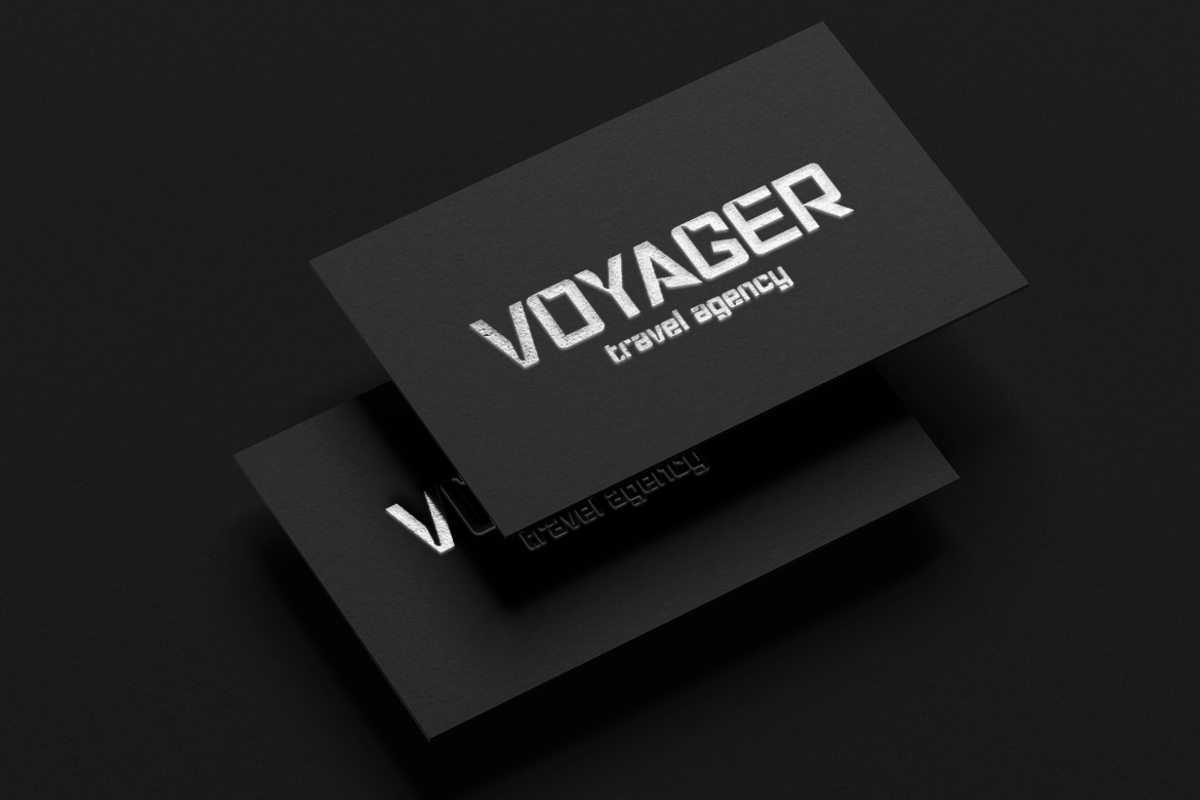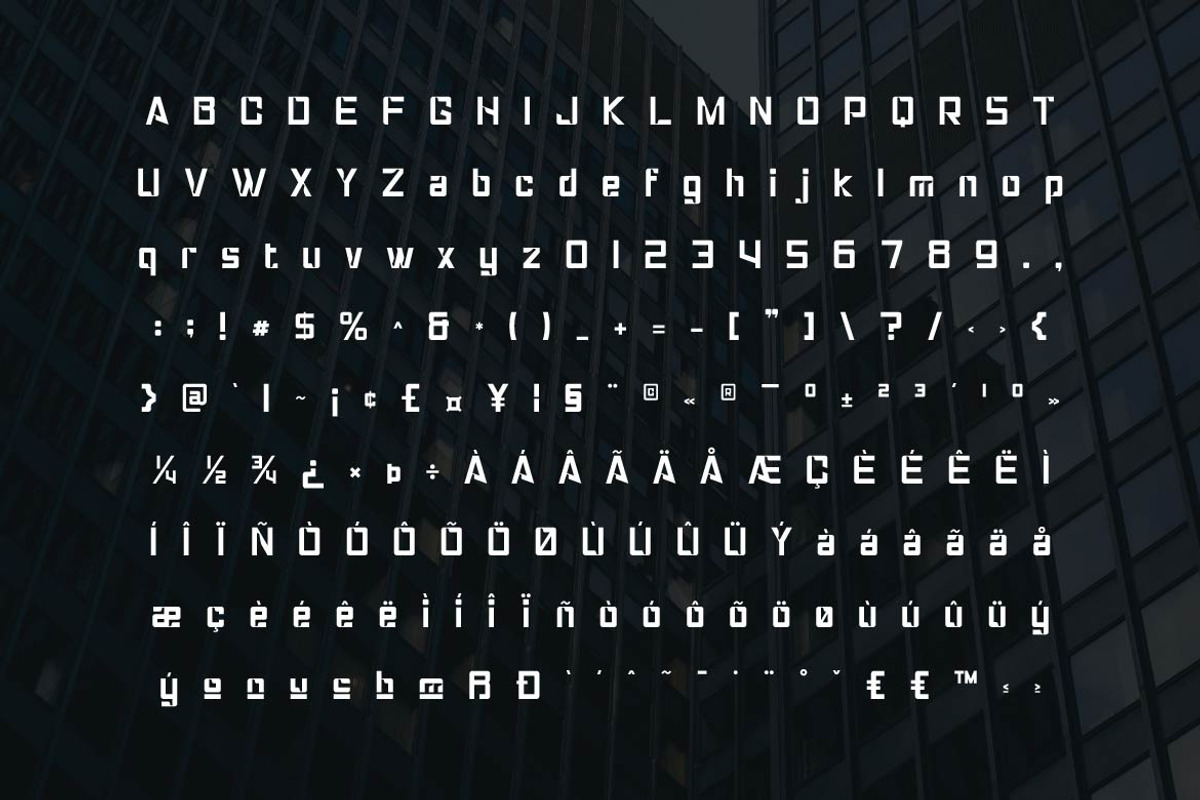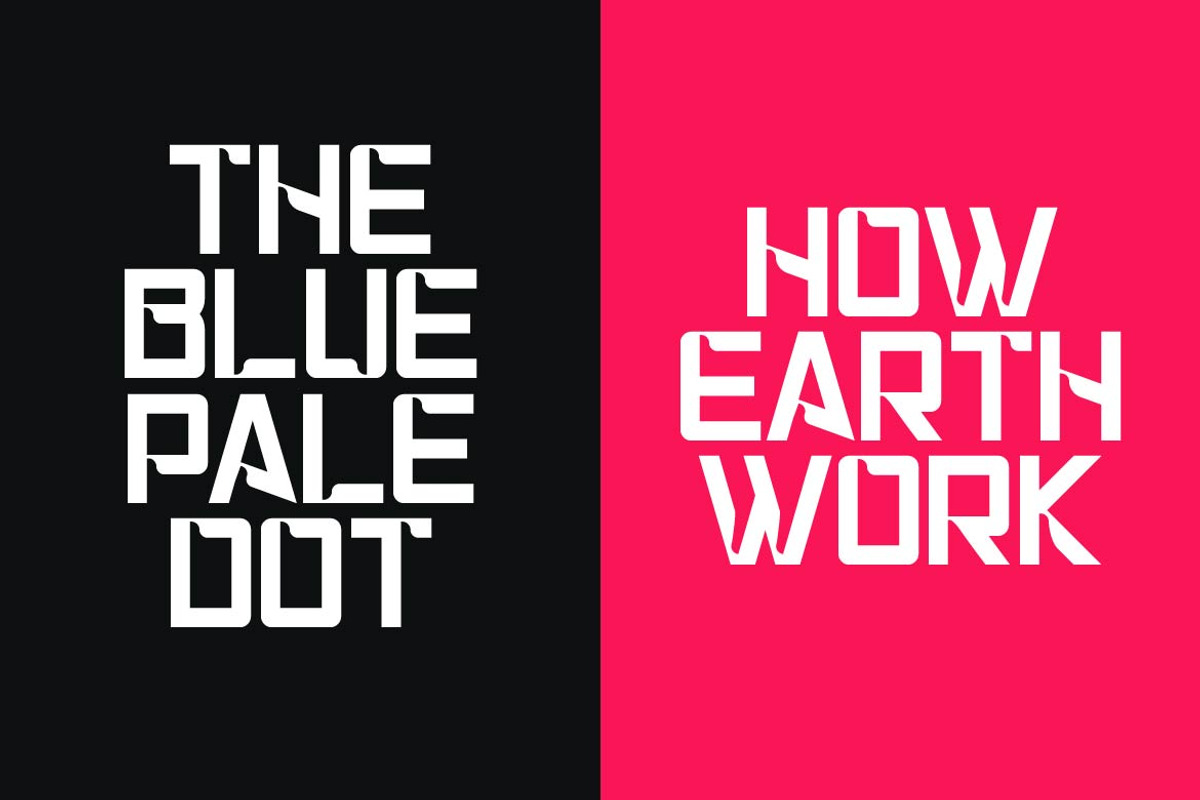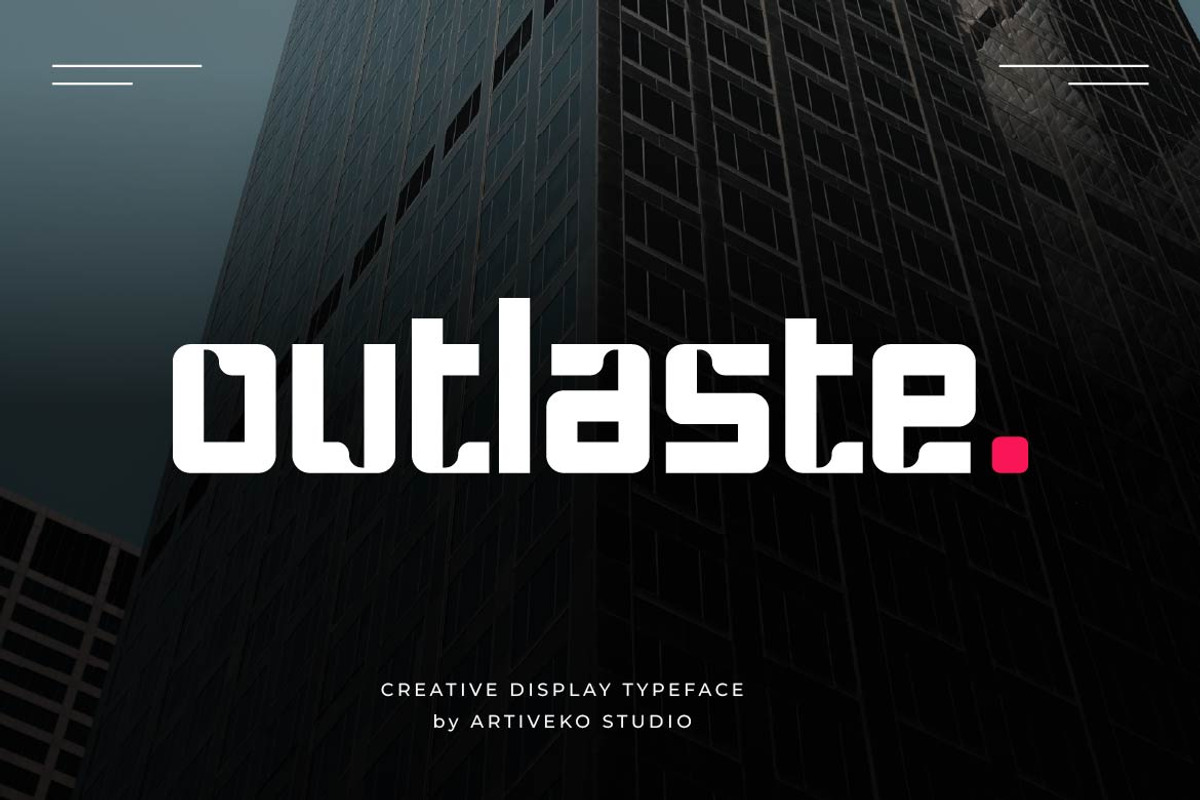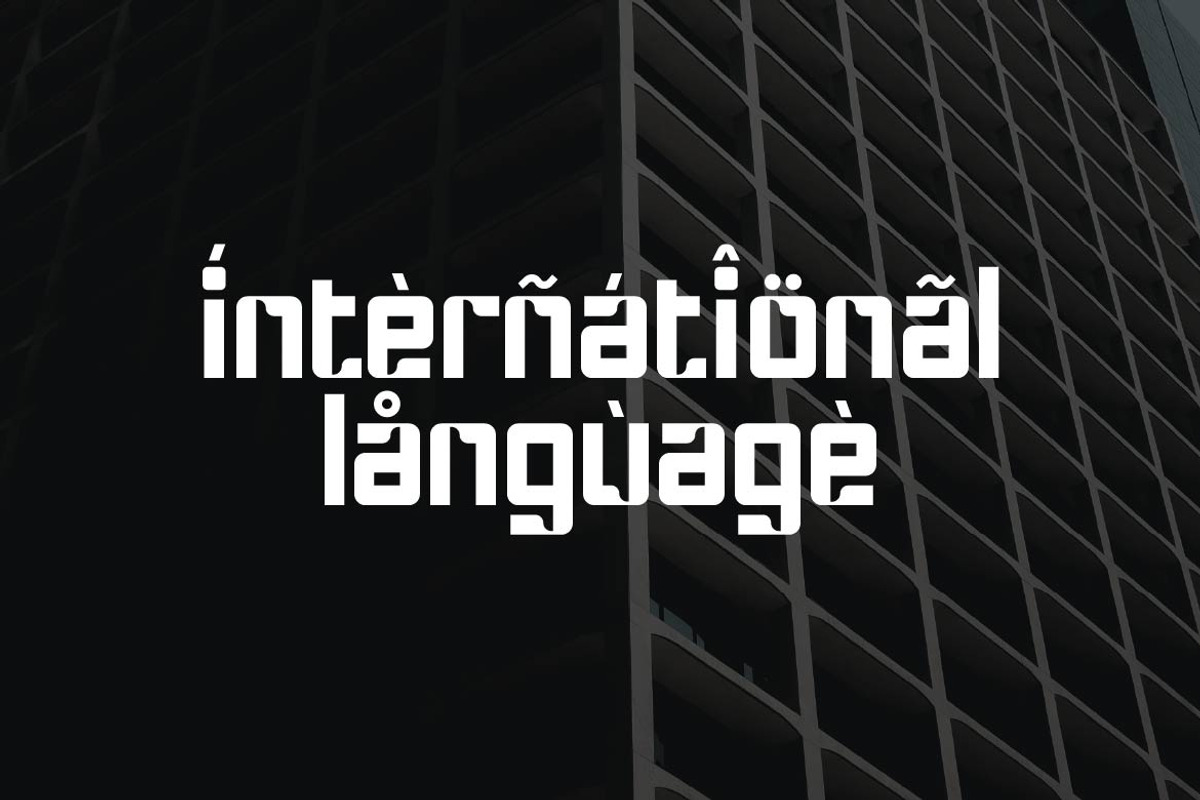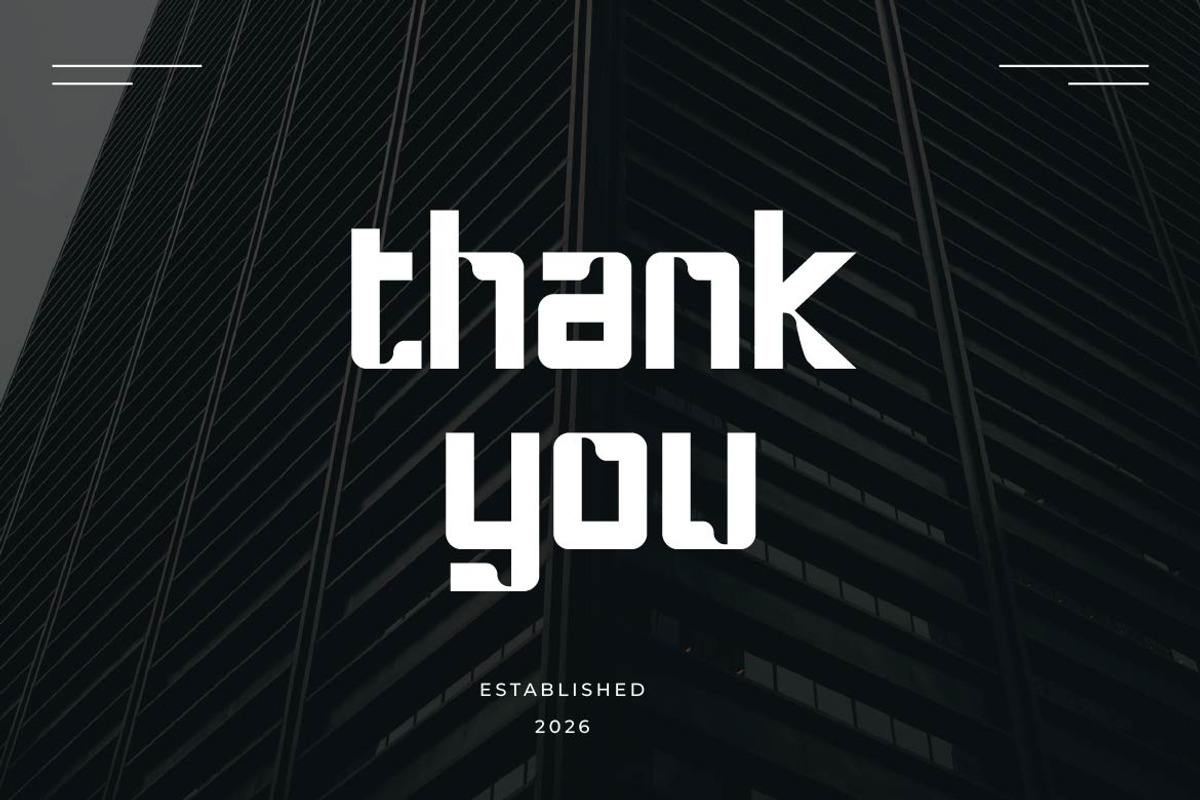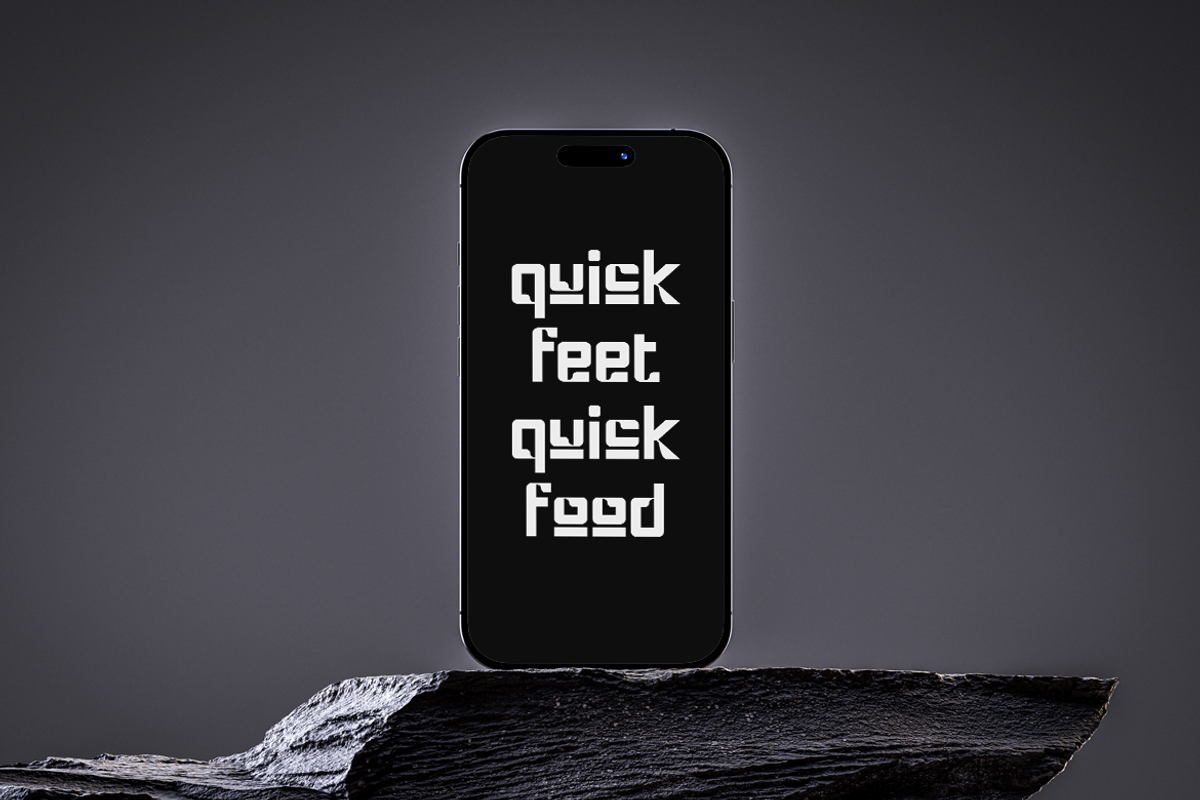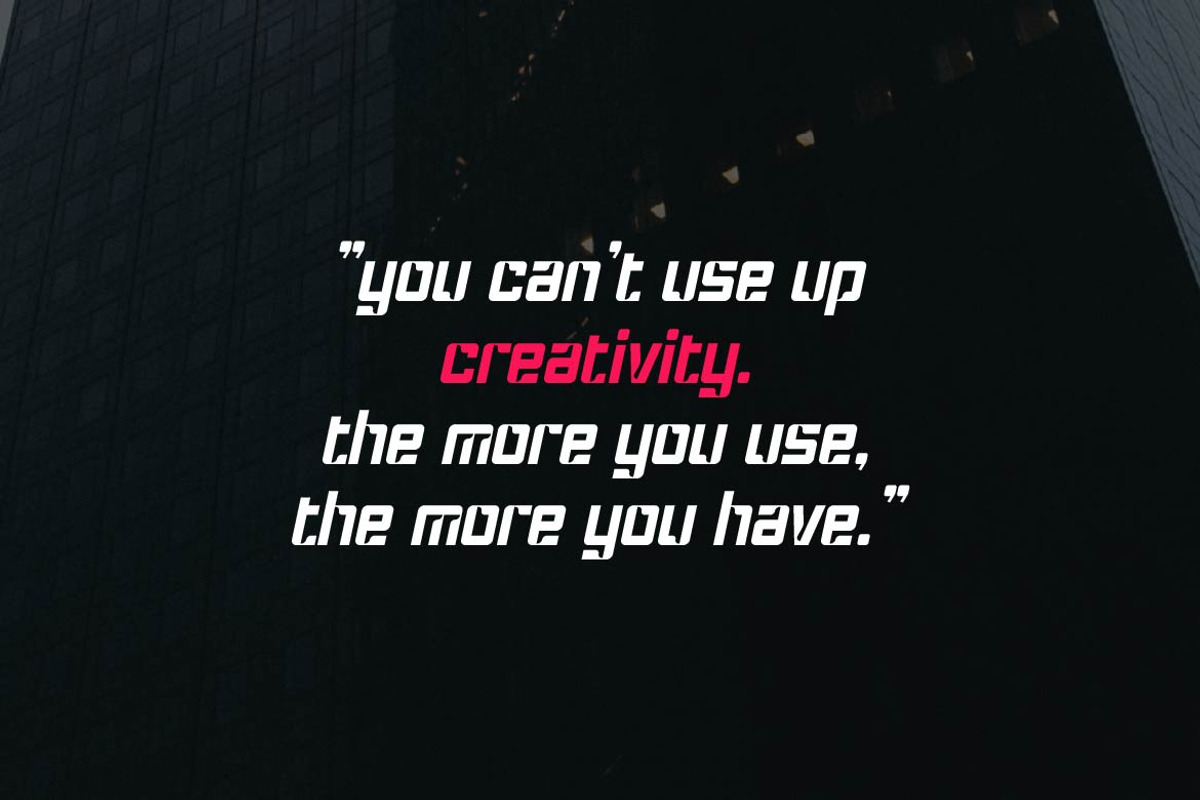
Outlaste – Creative Display Sans
Outlaste is a creative display sans serif typeface crafted to help your designs stand above the ordinary. Featuring bold letterforms, contemporary styling, and distinctive character details, Outlaste delivers a fresh visual personality that is both memorable and versatile.
Ton of glyphs